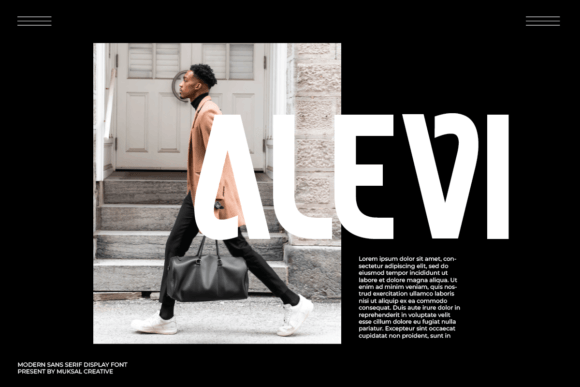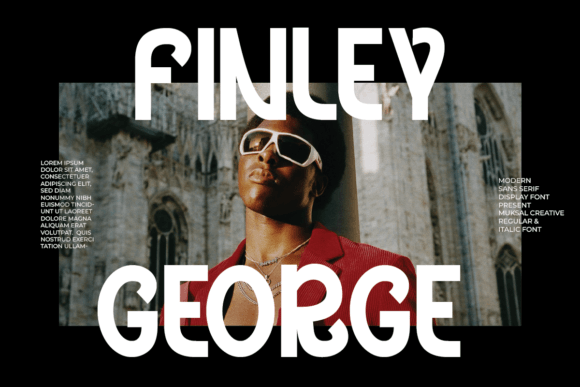
Finley George Font
Finley George Font, a sans-serif display font suffused with sleek, modern charm. Exuding effortless style with its neat, streamlined structure, this typeface will instantly elevate your visual creations. Finley George is a masterful blend of geometric preciseness and sumptuous style, making it an absolute must-have for luxury branding and innovative designs. The simplicity of its sans-serif contours guarantees maximum readability while maintaining a chic, avant-garde aesthetic.
Use it as a commanding display for large text requirements such as headlines, posters, and signage, and marvel at its high contrast design, delivering an eye-catching play of thick and thin strokes. When it comes to creating a lasting impression, Finley George excels in crafting noteworthy logos that resonate professionalism. Its stand-out style boosts branding for high-fashion labels, technology pioneers, and refined luxury products.
Discover the transformative effect Finley George brings to product packaging, introducing an air of sleek modernity. When integrated into marketing materials, it refines the look of business cards and brochures with a polished, contemporary finish. Even in the digital design realm, Finley George ensures high-impact readability across diverse web and mobile platforms. Go ahead and enrich your design repertoire with the gamut of versatility that is Finley George.